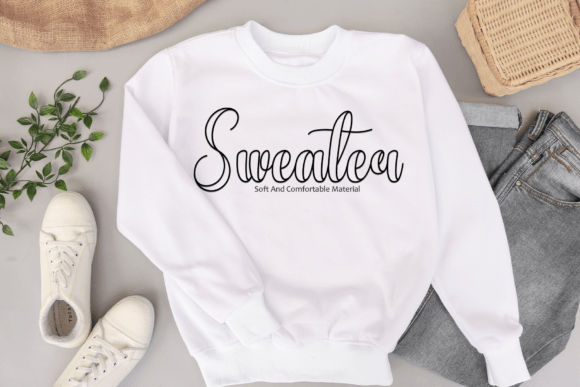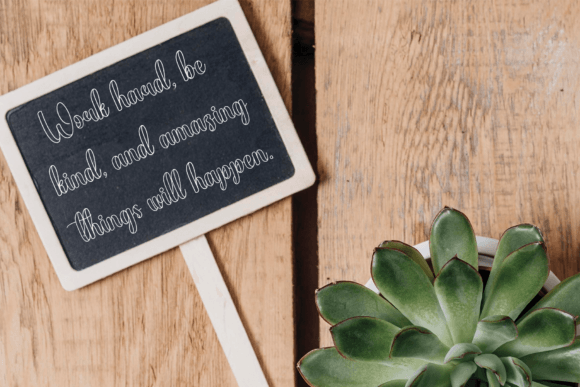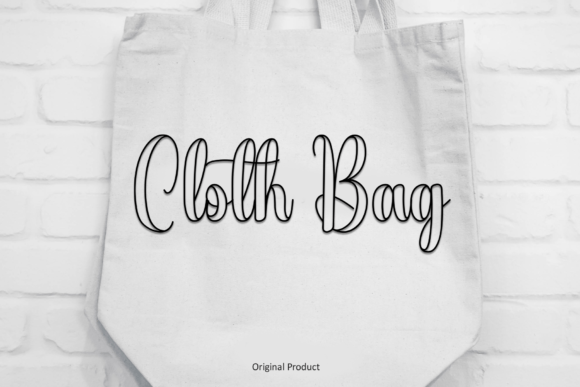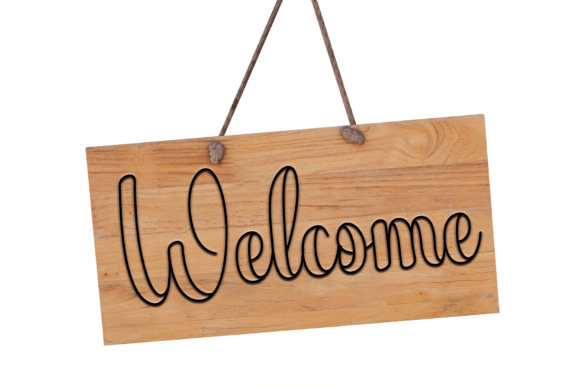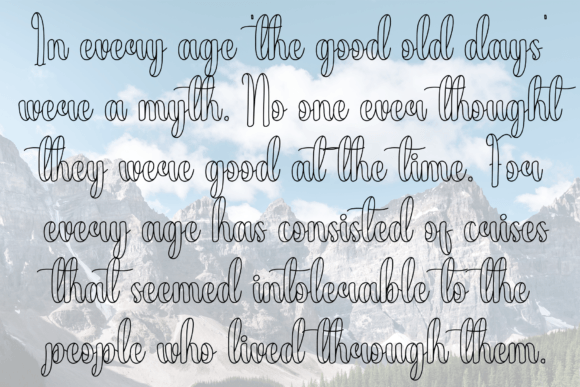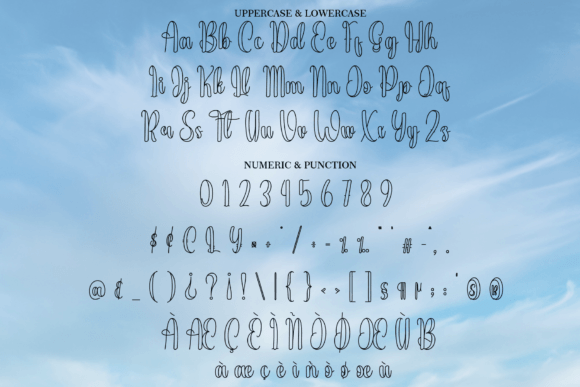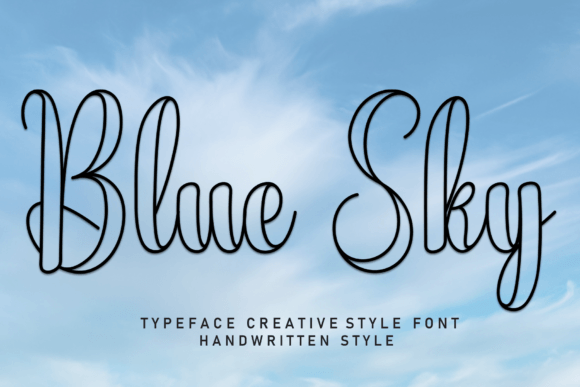
Introducing Blue Sky Font: The Sweet and Friendly Handwritten Font for Your Design Needs
Are you looking for a font that can add a lovely touch to your designs? Look no further than Blue Sky Font, a sweet and friendly handwritten font that’s perfect for creating beautiful wedding invitations, cards, and more. In this article, we’ll take a closer look at the Blue Sky Font, its features, and how you can use it to elevate your designs.
What is Blue Sky Font?
Blue Sky Font is a fresh and casual handwritten font that’s designed to bring a touch of warmth and personality to your designs. With its smooth and flowing lines, this font is ideal for creating a wide range of projects, from wedding invitations and cards to social media graphics and more.
Key Features of Blue Sky Font
- Sweet and Friendly Design: Blue Sky Font has a sweet and friendly design that’s perfect for creating designs that require a personal touch.
- Handwritten Style: This font has a beautiful handwritten style that’s perfect for creating unique and personalized designs.
- Fresh and Casual: Blue Sky Font has a fresh and casual feel that’s perfect for creating designs that are modern and trendy.
- Easy to Read: This font is easy to read, making it perfect for creating designs that require a clear and concise message.
Uses of Blue Sky Font
Blue Sky Font is a versatile font that can be used for a wide range of design projects, including:
- Wedding Invitations: This font is perfect for creating beautiful wedding invitations that are personalized and unique.
- Cards: Blue Sky Font is ideal for creating greeting cards, birthday cards, and other types of cards that require a personal touch.
- Social Media Graphics: This font can be used to create social media graphics, such as Facebook posts, Instagram posts, and more.
- Blog Posts: Blue Sky Font can be used to create beautiful blog posts that are visually appealing and easy to read.
Tips for Using Blue Sky Font
Here are some tips for using Blue Sky Font in your designs:
- Pair it with Other Fonts: Blue Sky Font can be paired with other fonts to create a unique and visually appealing design.
- Use it for Headings: This font is perfect for creating headings and titles that require a personal touch.
- Add it to Your Designs: Blue Sky Font can be added to your designs to create a beautiful and unique look.
In conclusion, Blue Sky Font is a sweet and friendly handwritten font that’s perfect for creating beautiful designs that require a personal touch. With its fresh and casual design, this font is ideal for creating wedding invitations, cards, social media graphics, and more. Whether you’re a designer or a crafter, Blue Sky Font is a great addition to your font collection.